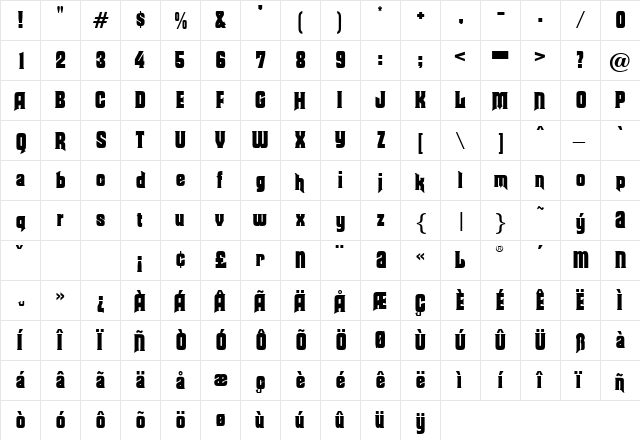
Moorgate Regular
Design Context for Moorgate Typeface
Moorgate is a composed and adaptable typeface that performs quietly and consistently across a wide range of design contexts.